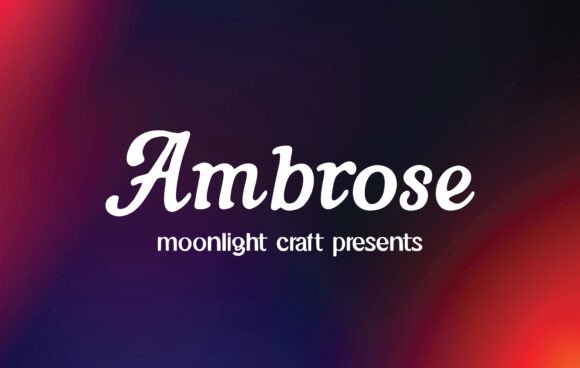
The Ambrose Font: A Beautiful Handwritten Delight for Creative Minds
I’ll never forget the design struggle I faced while working on a branding project for a local boutique. My client wanted a font that was both elegant and playful, but I was coming up blank. That’s when I stumbled upon the Ambrose font, and it instantly became my go-to. If you’re a designer, crafter, or creative hobbyist looking for a beautiful handwritten font to take your projects to the next level, you’re in the right place!
A Personal Review: What I Love About Ambrose
The Ambrose font has won my heart with its lovely and beautiful handwritten style. Here are some things I absolutely love about it:
- ✨ Unique and elegant lettering that adds a touch of sophistication to any design
- ✅ Highly versatile and adaptable to various design projects, from logos to quotes
- 💫 Beautifully crafted to evoke a sense of warmth and personality
- 🎨 Perfect for creating eye-catching branding, logos, and social media graphics
While Ambrose is an amazing font, there are a few minor quirks to be aware of:
- 🤔 Some users might find the font a bit too ornate for very small text sizes
- ⚠️ Limited availability of certain OpenType features, which might affect advanced typography
The Designer Inspiration Behind Ambrose
The Ambrose font was crafted with inspiration from classic handwritten scripts and a dash of modern flair. Its creator aimed to design a font that would evoke a sense of warmth and personality, perfect for creative projects that require a human touch.
| What makes Ambrose a great choice for branding? | Ambrose offers a unique and elegant handwritten style that can add a touch of sophistication to any brand identity. |
| Is Ambrose available in different weights or styles? | Currently, Ambrose is available in a single weight, but its versatility and adaptability make it easy to use in various design contexts. |
| Can I use Ambrose for digital and print projects? | Absolutely! Ambrose is designed to work well in both digital and print applications, from social media graphics to business cards and brochures. |